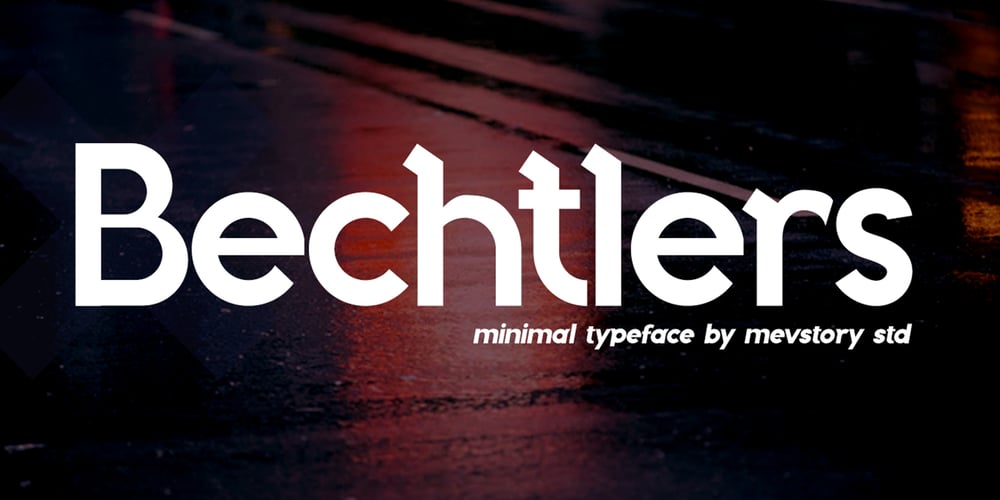
Bechtlers Font Family was designed by Muhammad Afif Ersya and published by Mevstory Studio. Bechtlers contains 2 styles and family package options. Bechtlers is a sharp geometric display sans font with roman proportion. Every character is in essence built from a rectangle (square), a circle and a triangle, and with just a little adjustment to make them appear optically equivalent.This font is equipped with some OpenType Layout Features such as fractions and ligatures, with the default layout for numbers being proportional lining. Tabular lining figures are also available to feature a more even spacing.